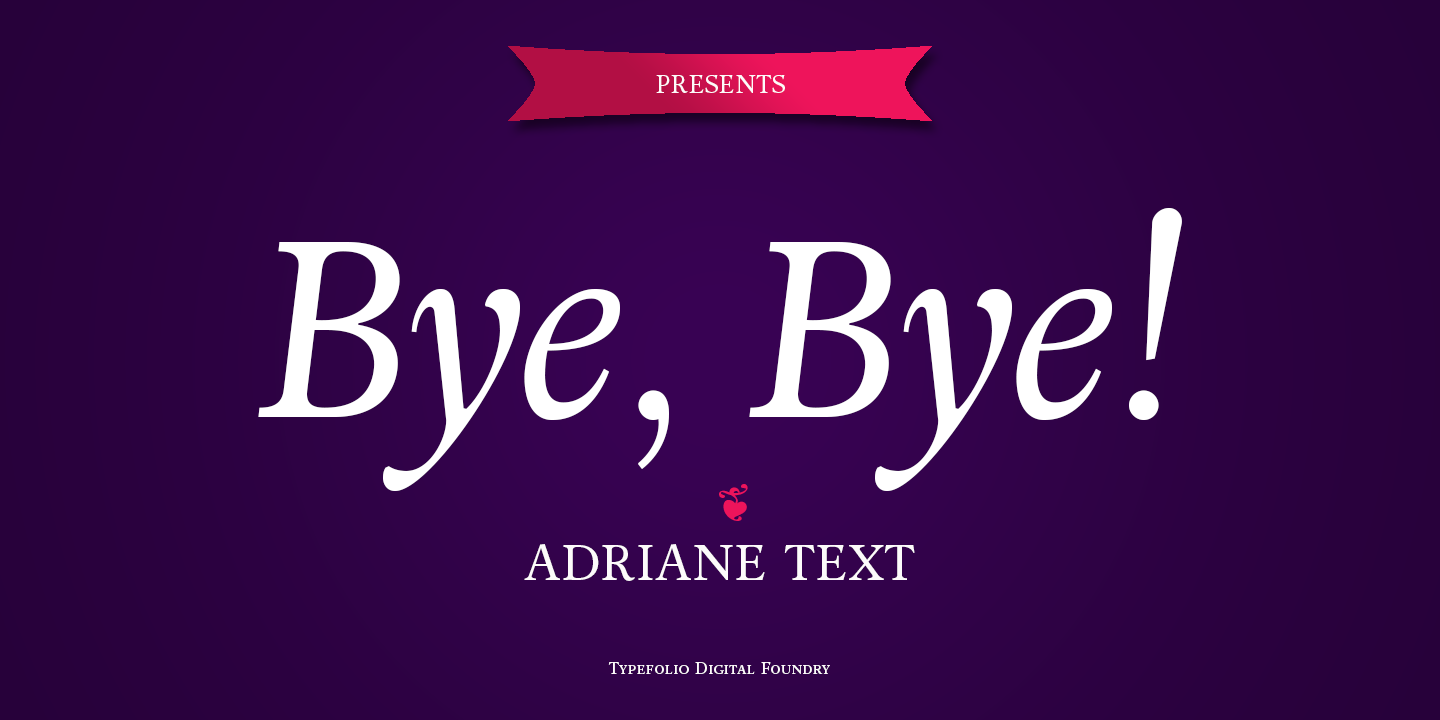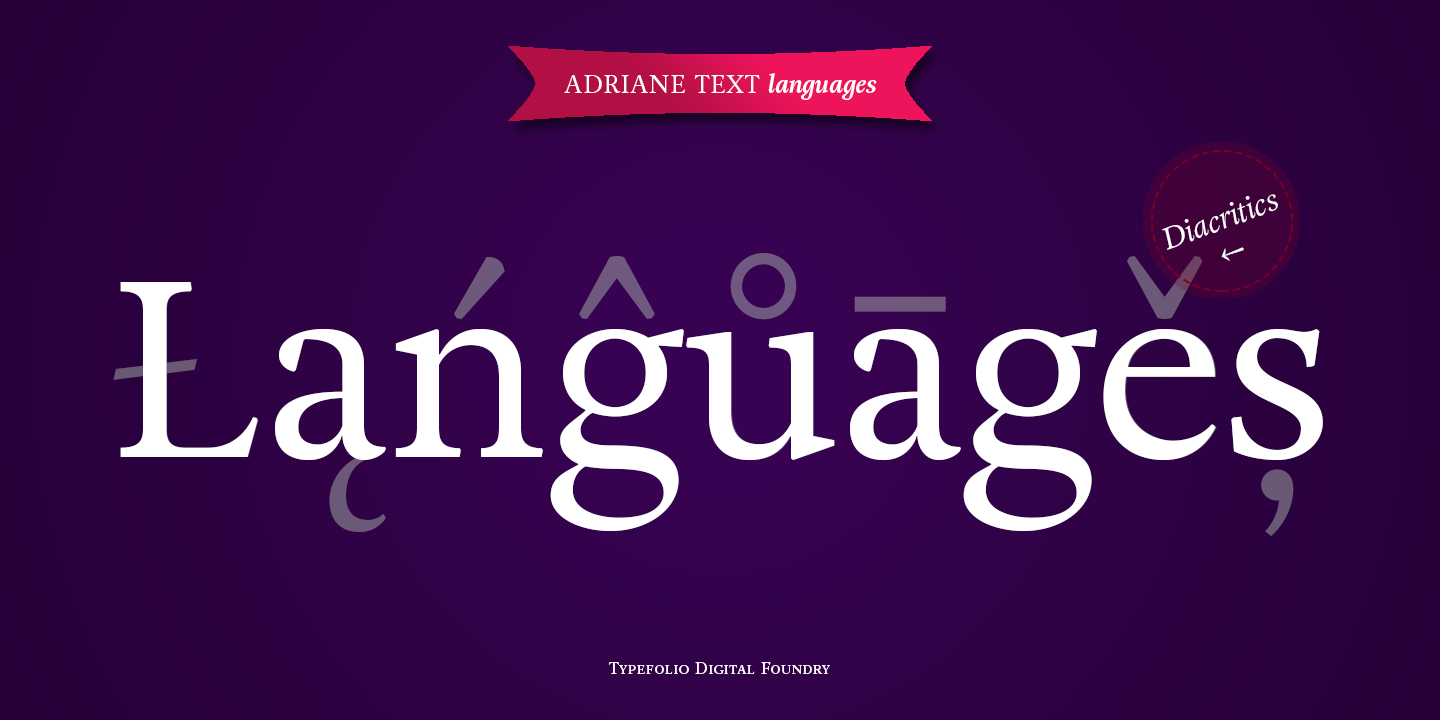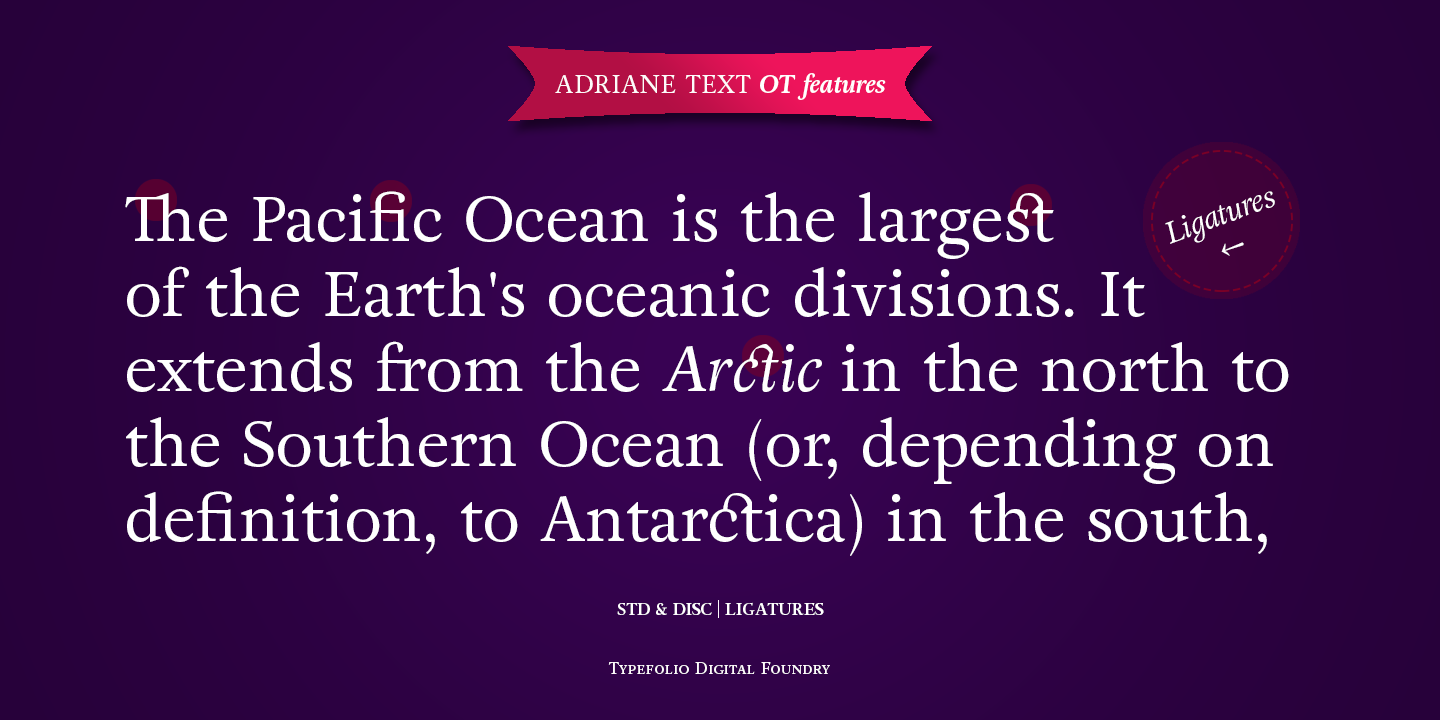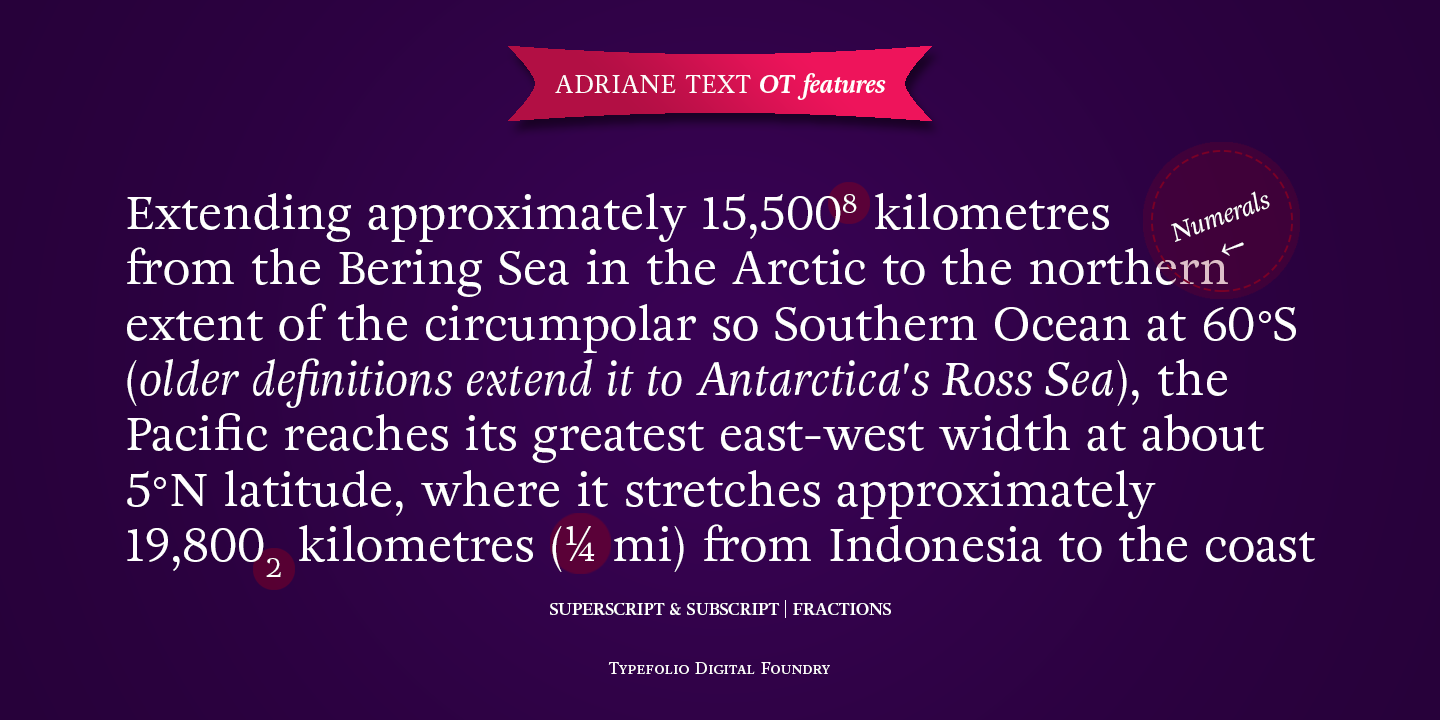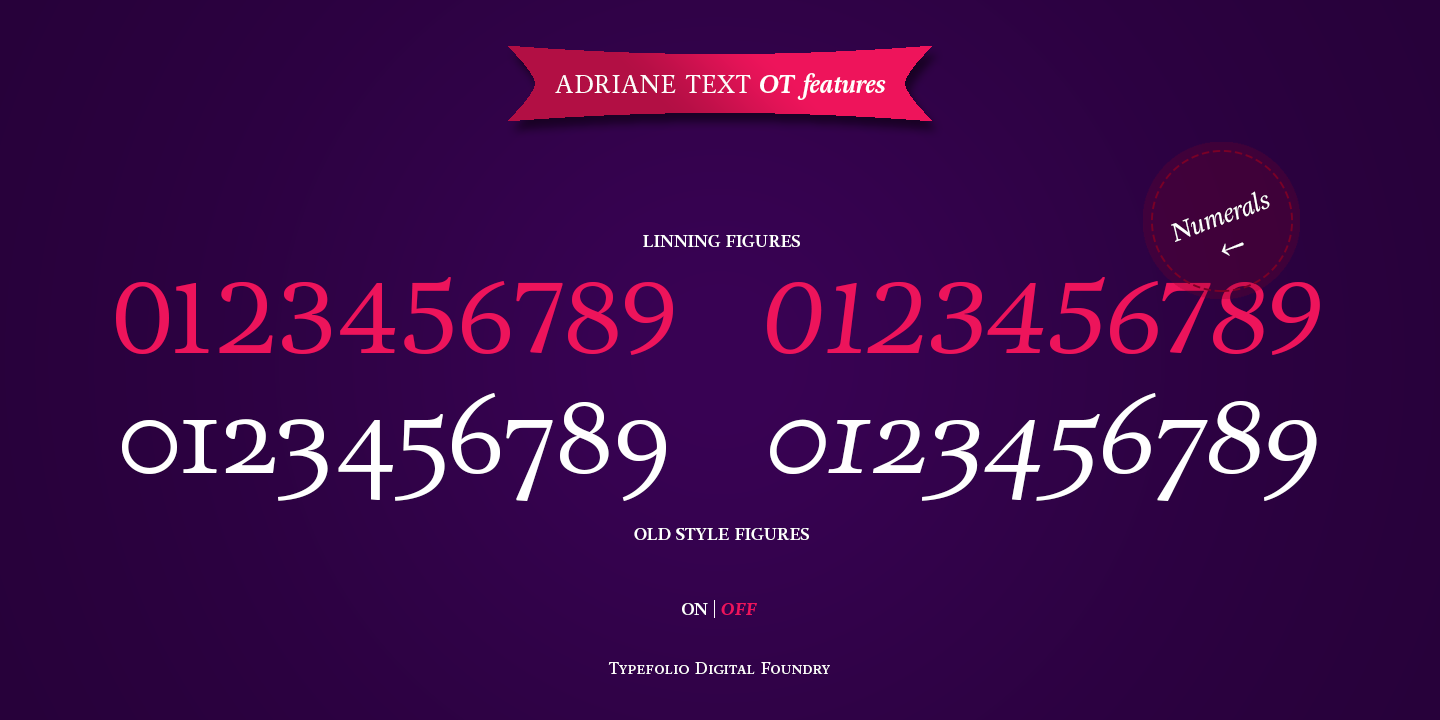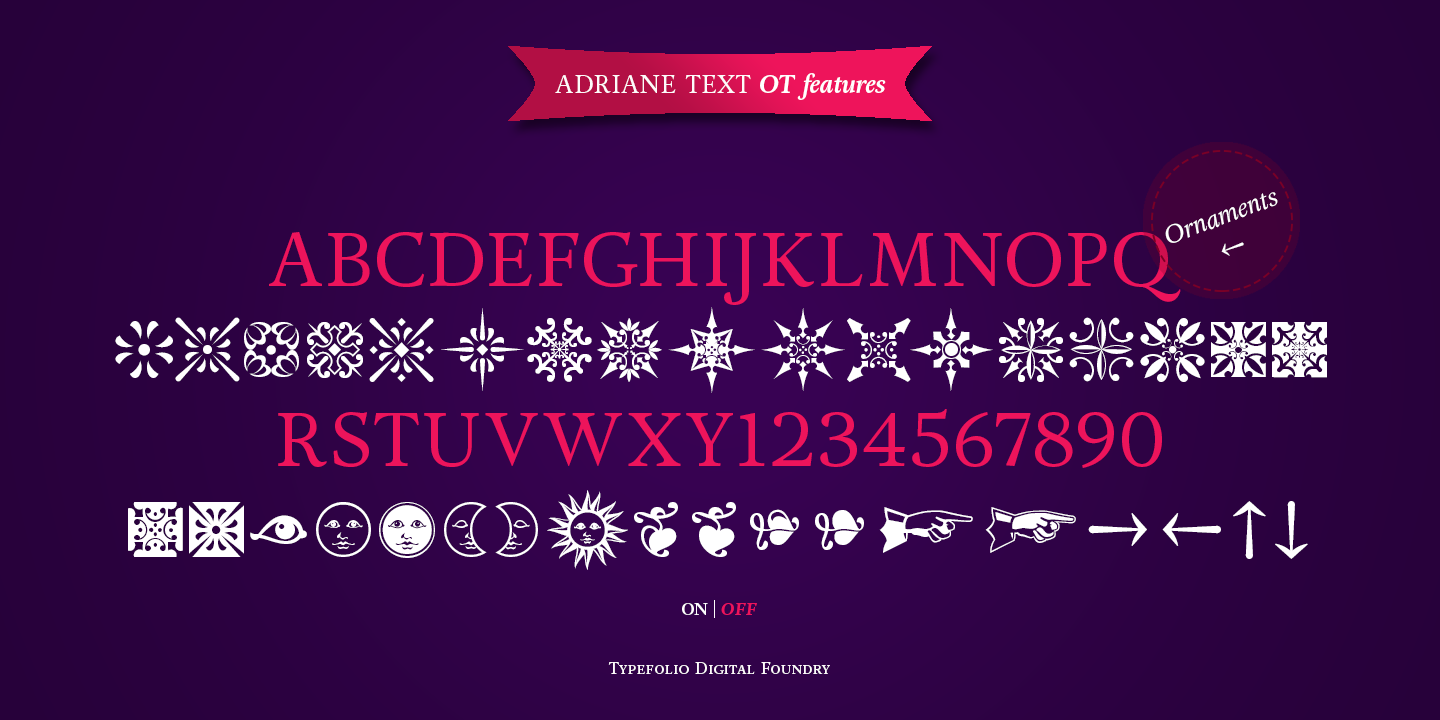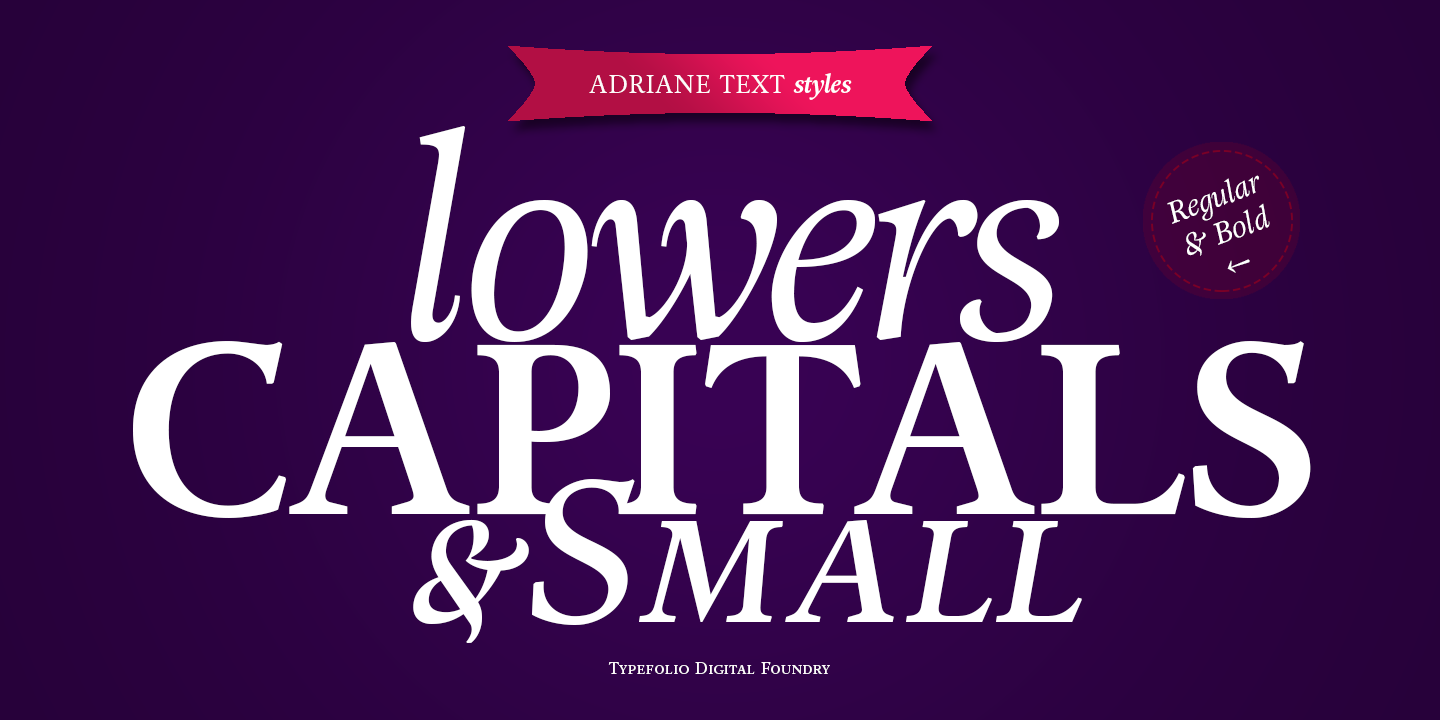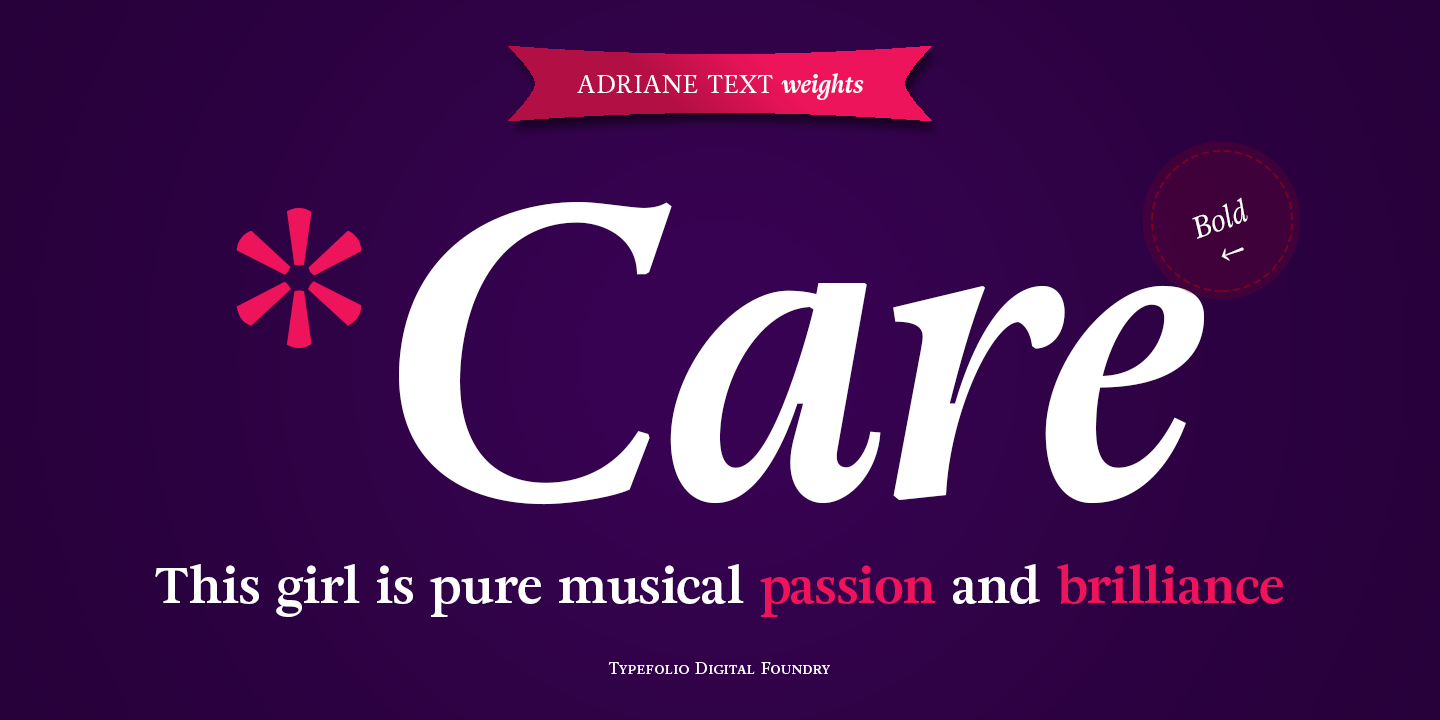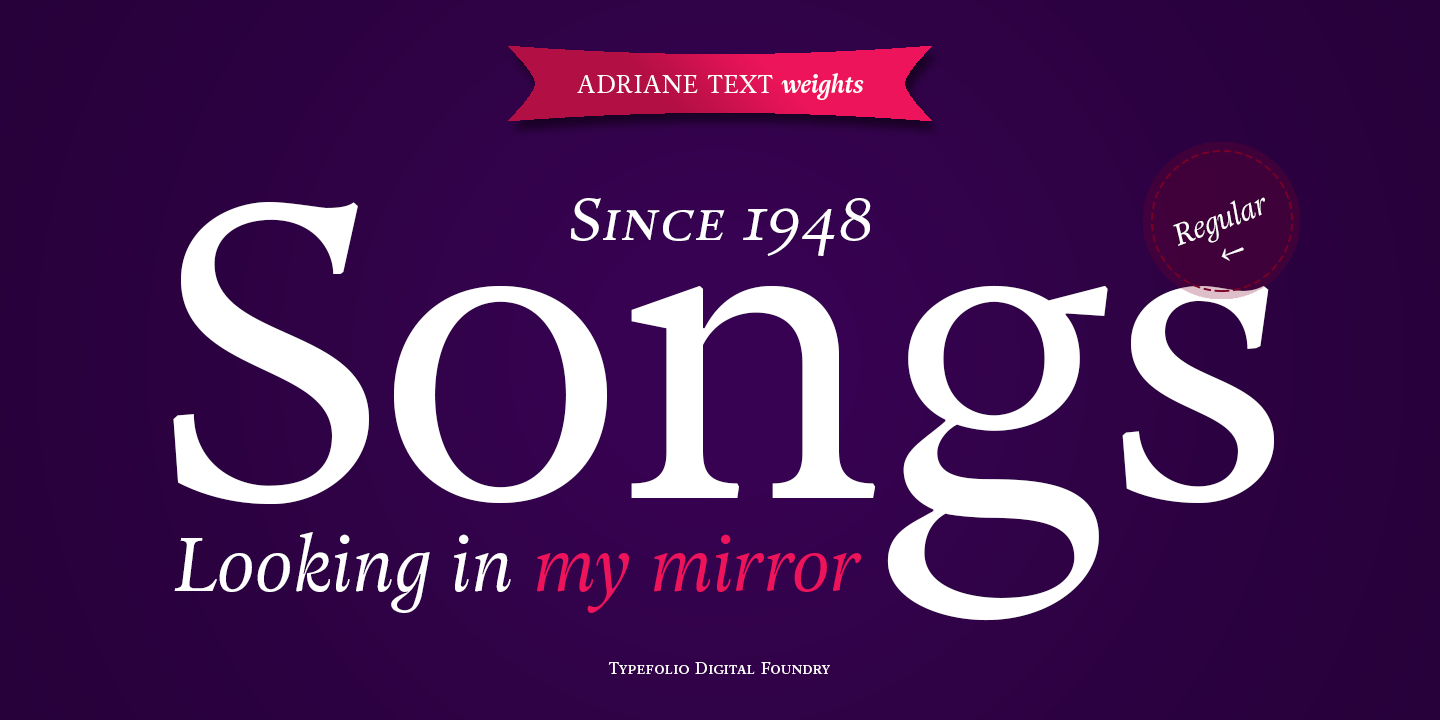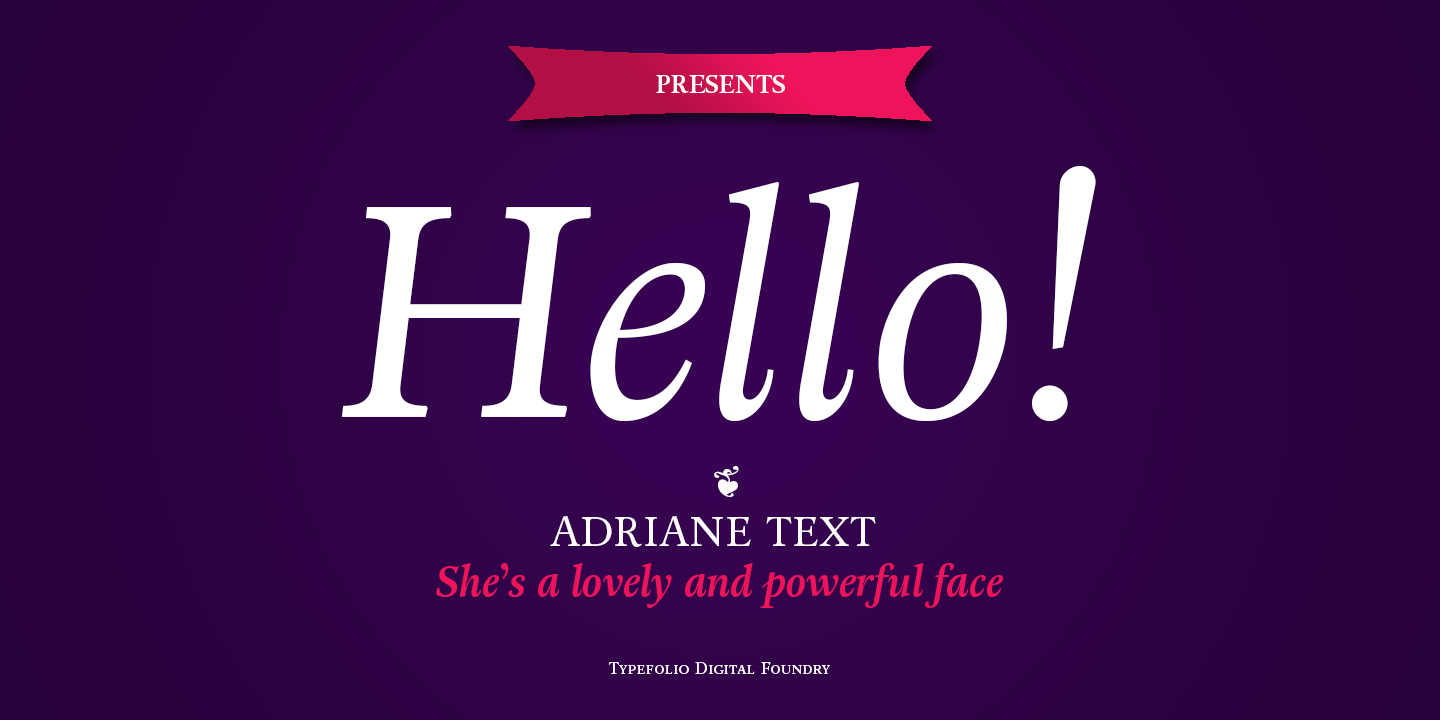
Adriane Text Family (4 fonts)
This package of advanced OpenType fonts consists of the style-linked quartet of Regular and Bold weights accompanied by corresponding Italics, each of which include small caps and full support for Extended Latin character sets - now including Central European diacritics. Old style and lining figures are provided in both proportional and tabular spacing, and an extensive set of ligatures, ornaments, dingbats, and alternate ampersands are available across the family.
The Italics possess a fluidity that contrasts with the staid posture of the Roman styles. The degree of inclination for the uppercase and lowercase characters are slightly different, offering an enhanced visual rhythm in the text settings.